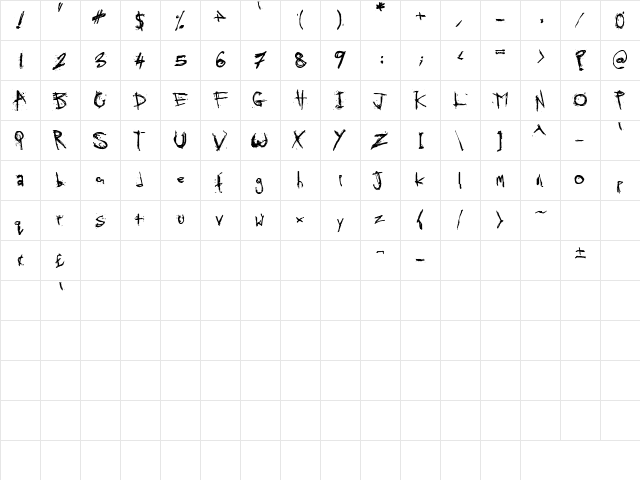
SKRATCHYthespook Regular
Design Context for SKRATCHYthespook Typeface
SKRATCHYthespook is a composed and adaptable typeface that performs quietly and consistently across a wide range of design contexts.